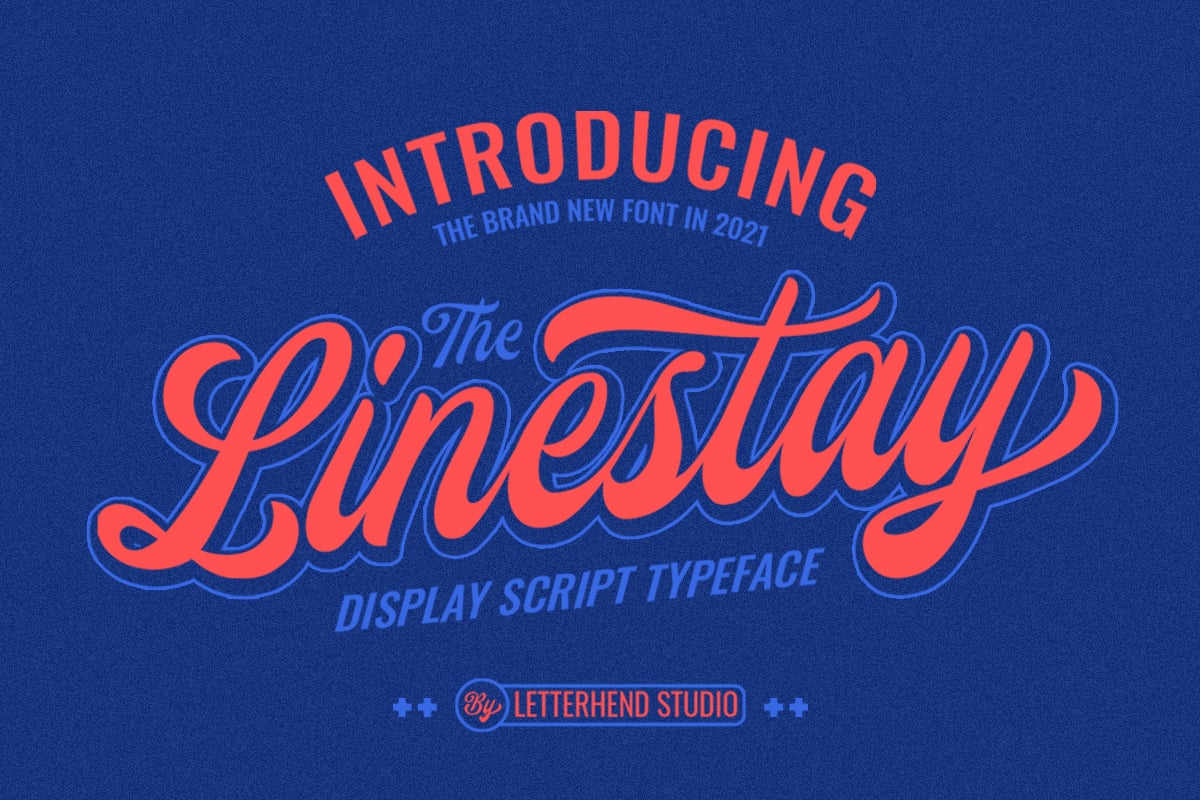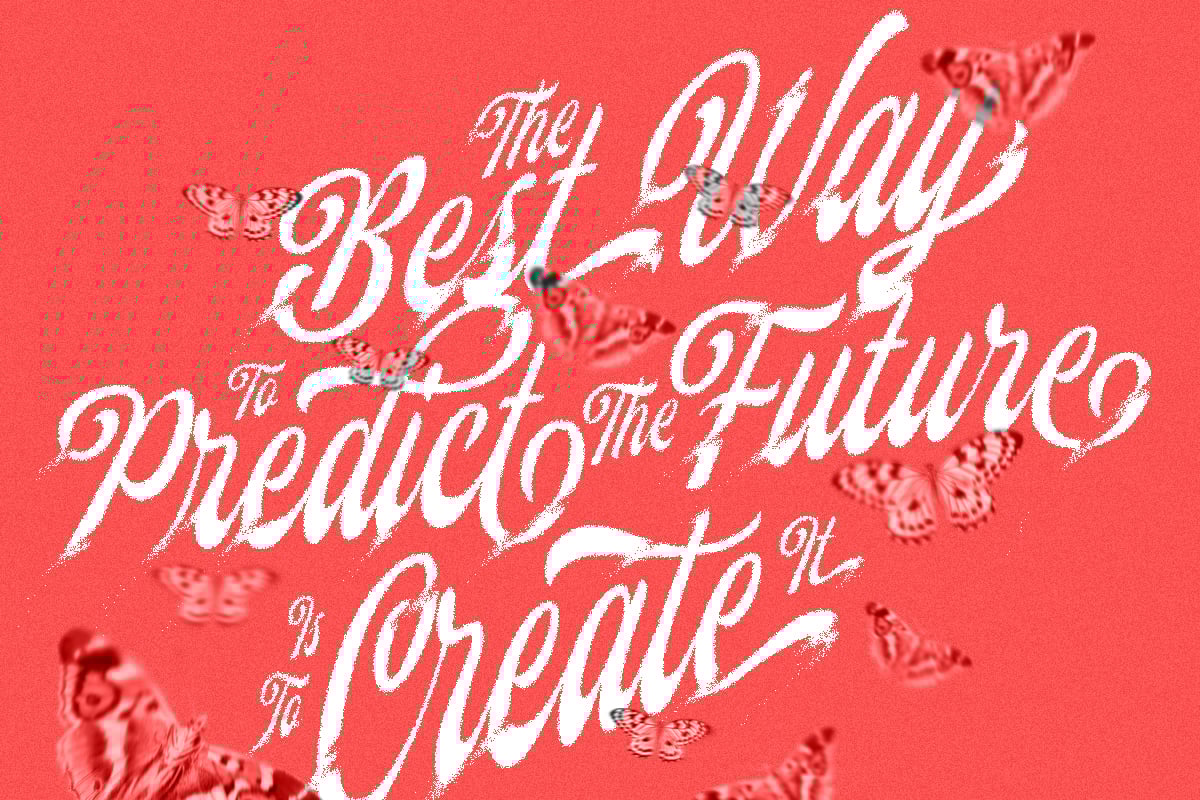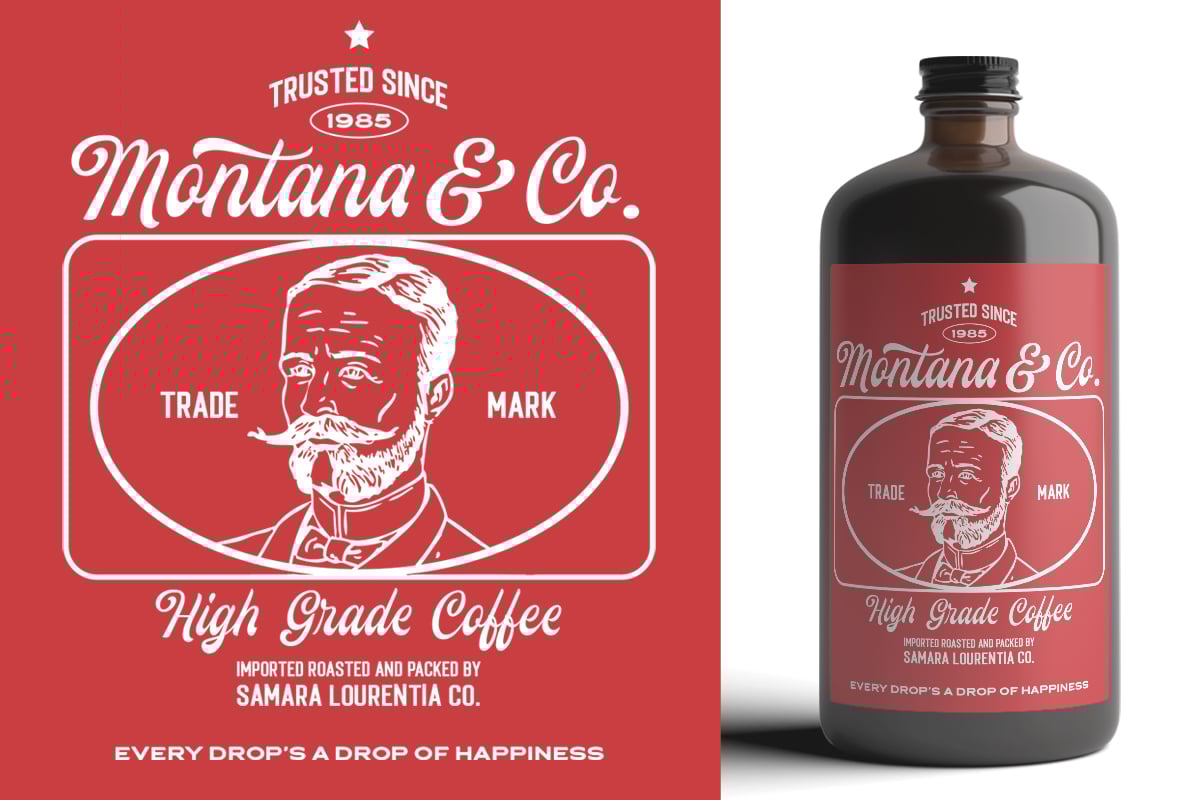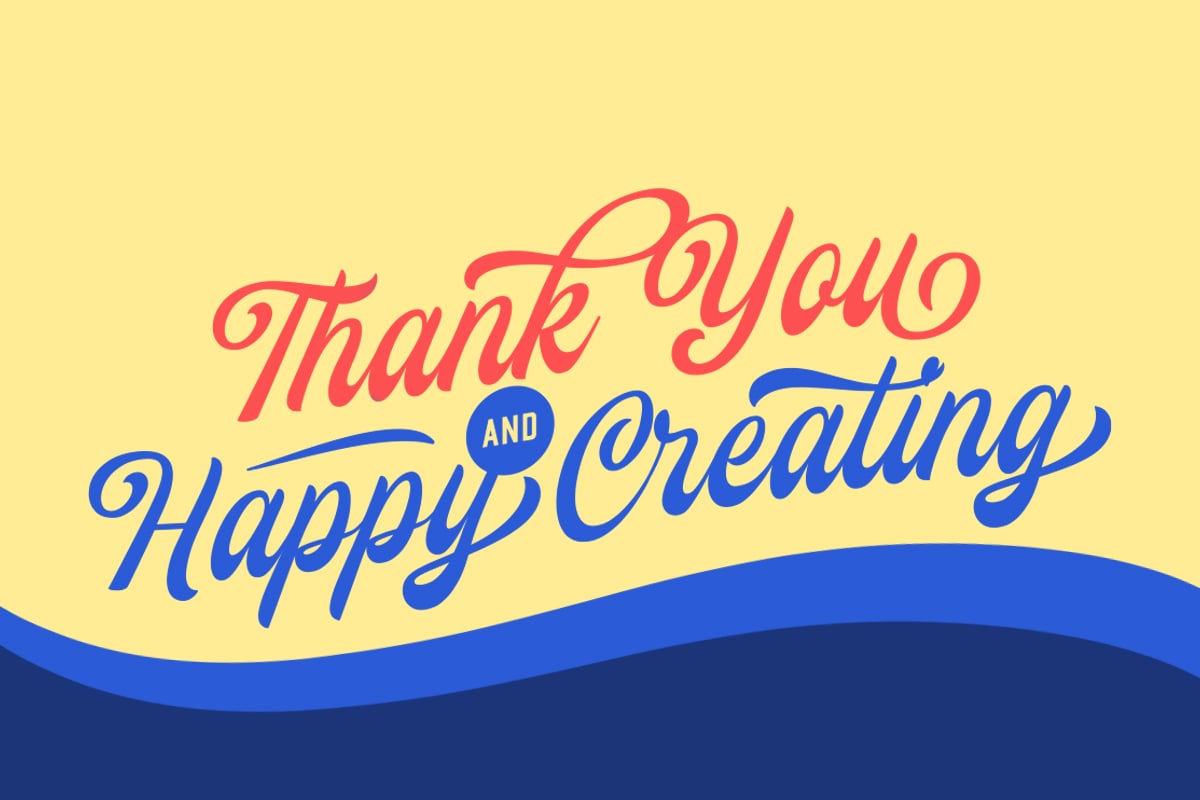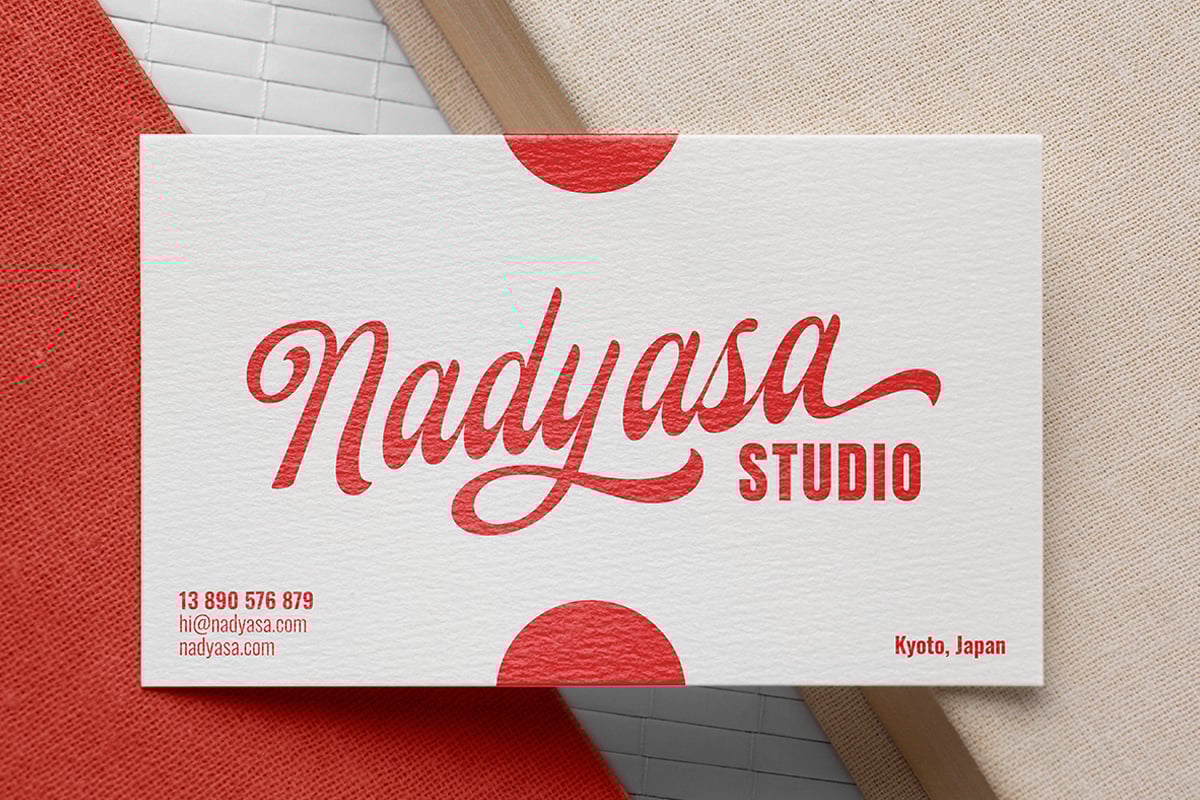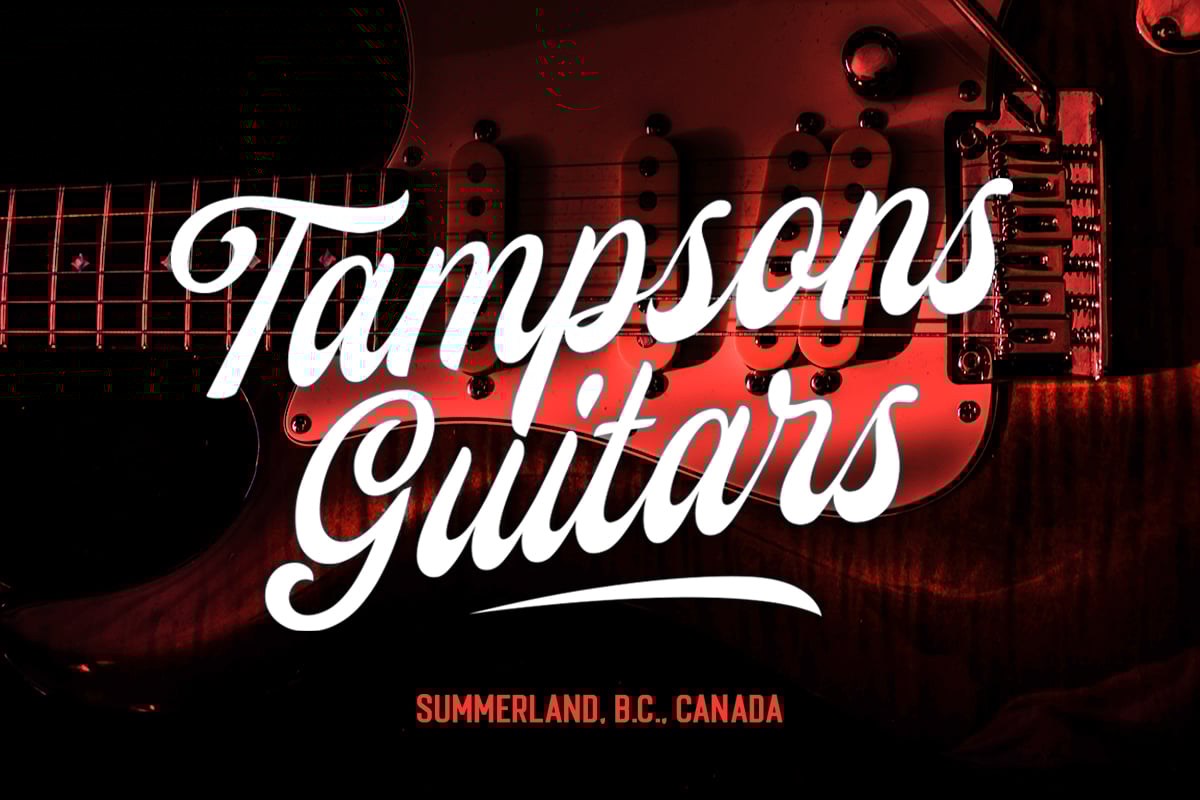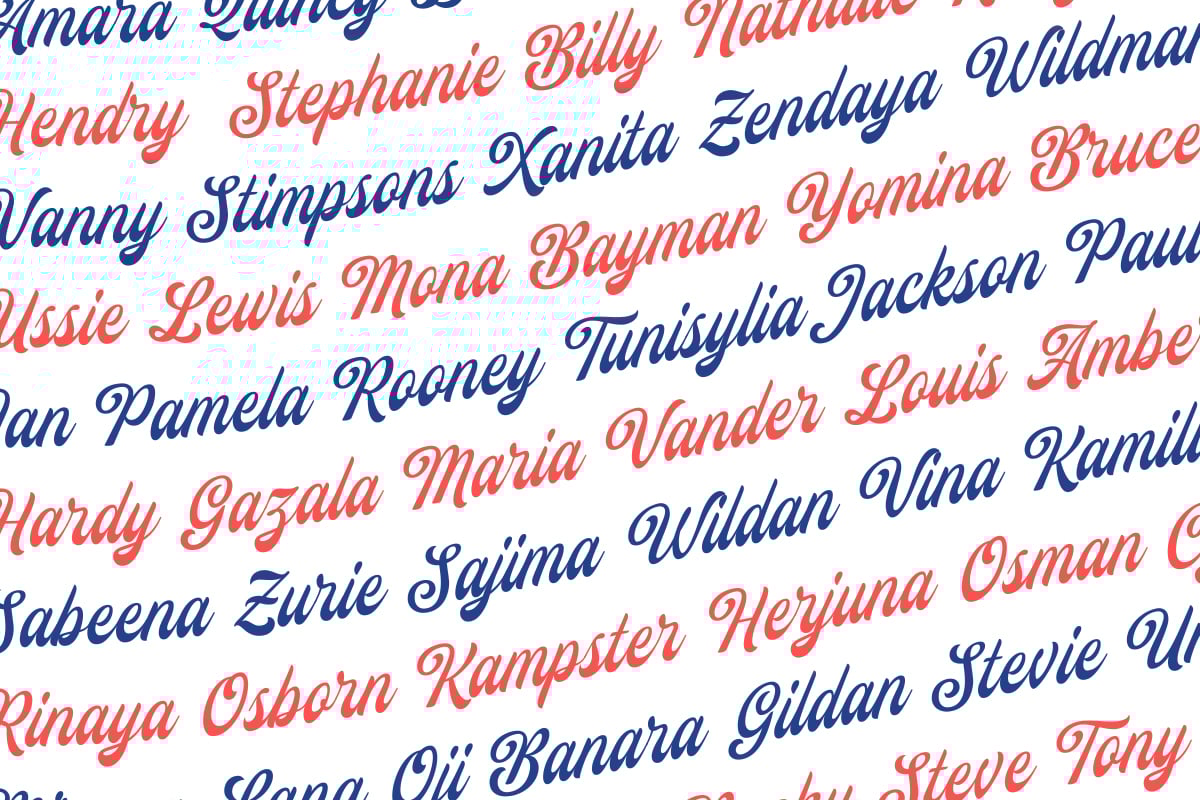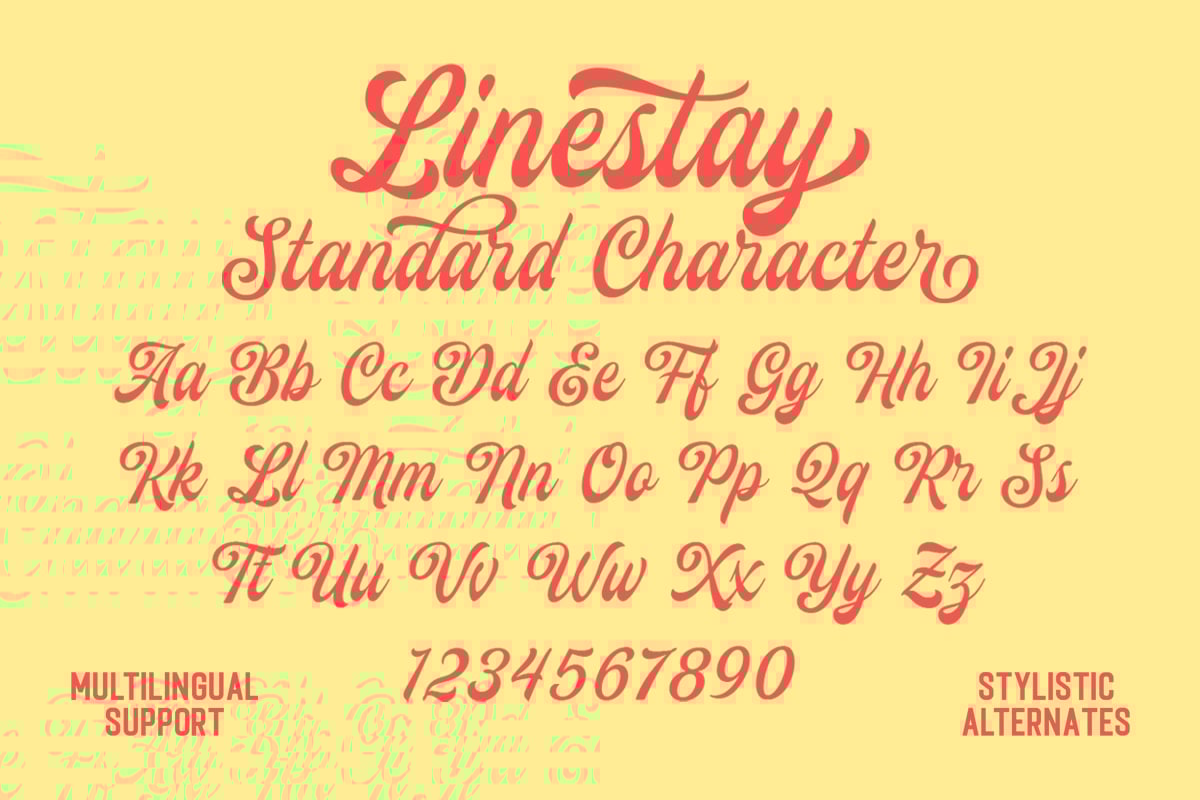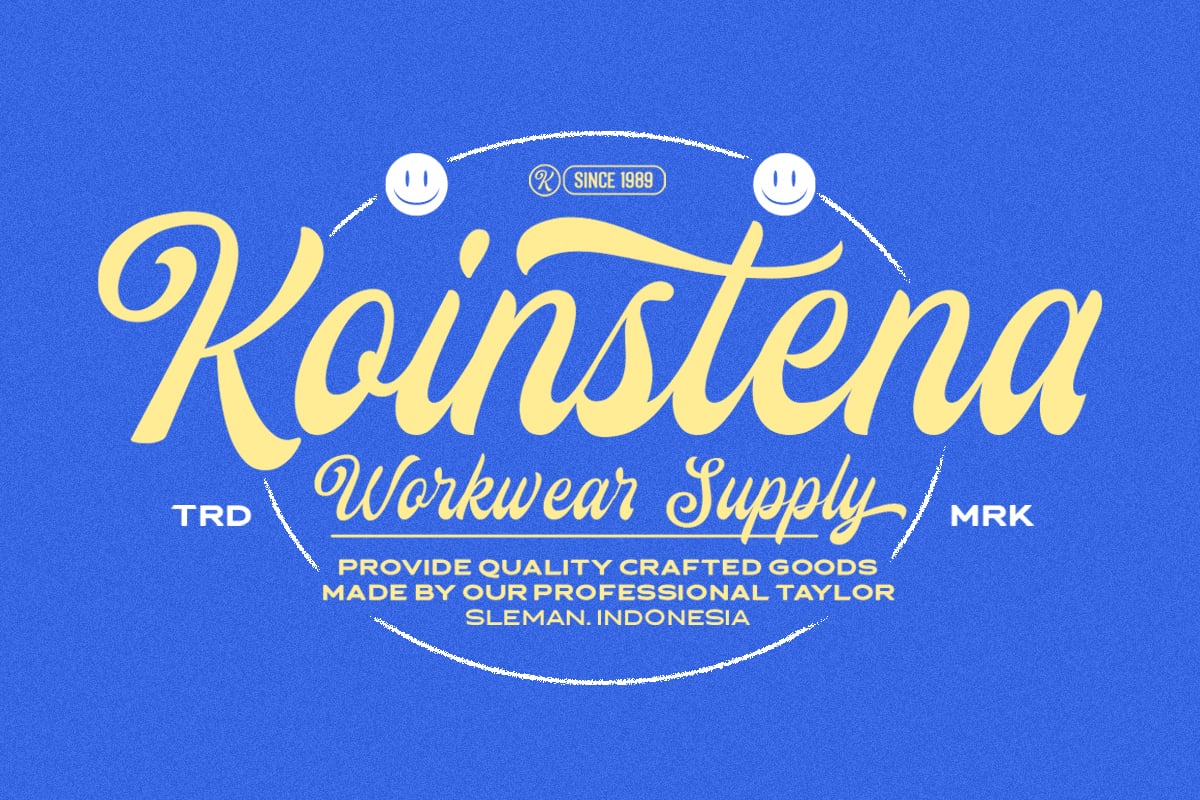
The Linestay – Display Script Font
Introducing, The Linestay – a standout bold script with a touch of vintage look and feel. This type of font perfectly made to be applied especially in logo, headline, signage and the other various formal forms such as invitations, labels, logos, magazines, books, greeting / wedding cards, packaging, fashion, make up, stationery, novels, labels or any type of advertising purpose.
- uppercase & lowercase
- numbers and punctuation
- multilingual
- alternates / swashes and ligatures